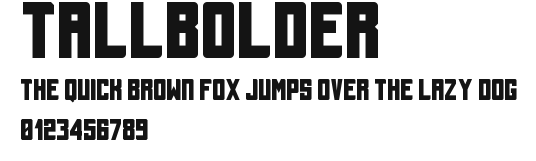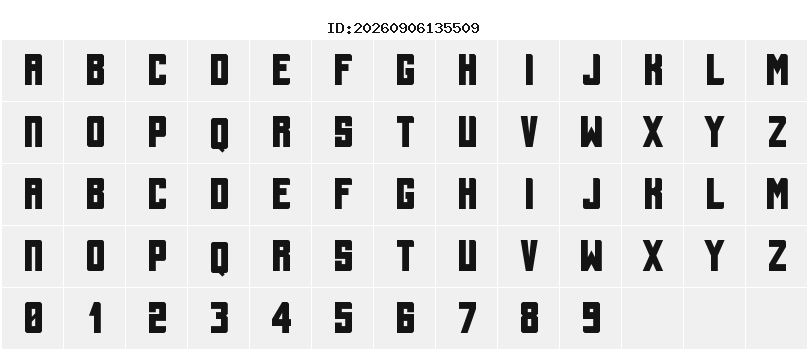
Tallbolder Preview
About Tallbolder.ttf
Tallbolder.ttf is a modern, elegant sans-serif font designed for ultimate readability and visual harmony. Perfect for branding, headlines, web design, and print materials.